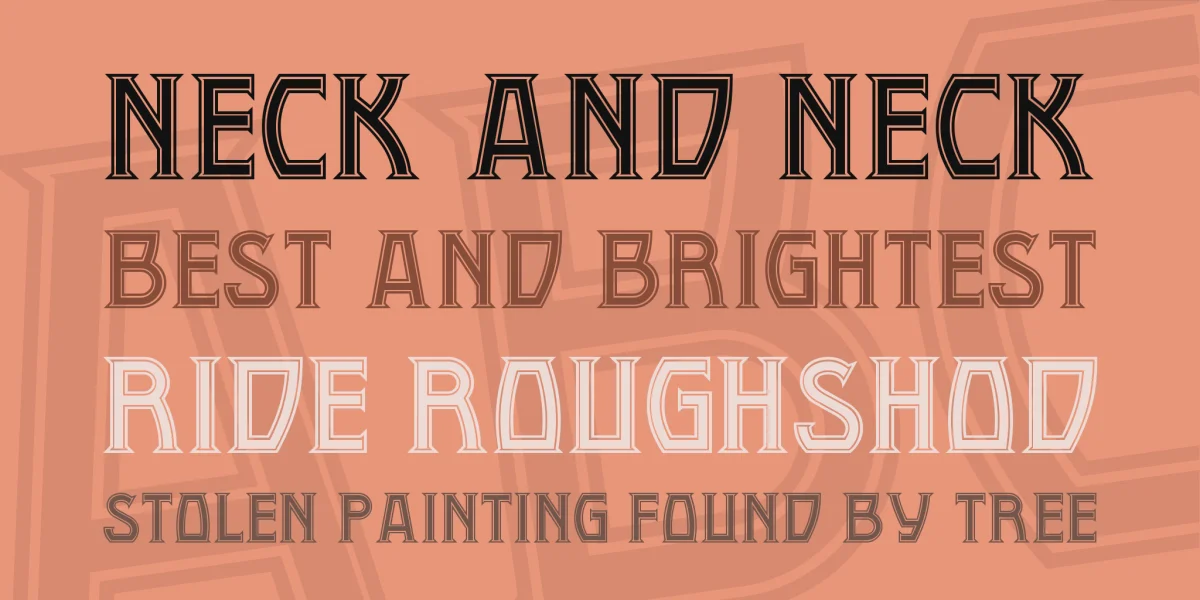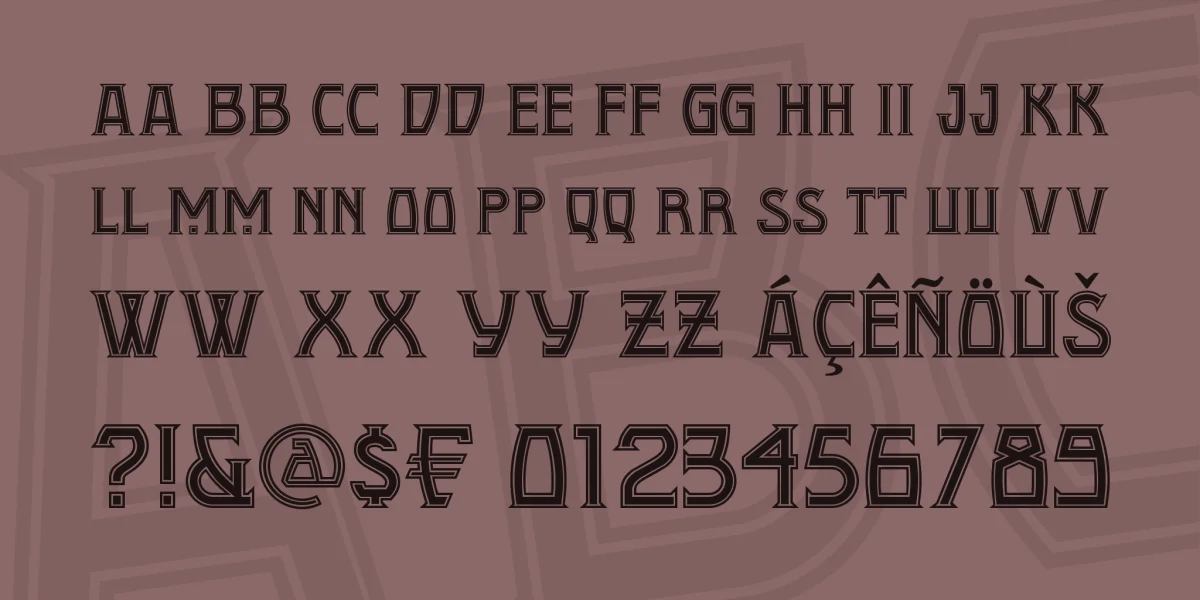
This font was inspired by poster lettering for an Austrian lodge, designed and executed by one Anton Reckziegel, circa 1910. I added the inline treatment to give the font a stronger architectural appeal, and chose a name that showed off some of the font’s more charming idiosyncrasies.